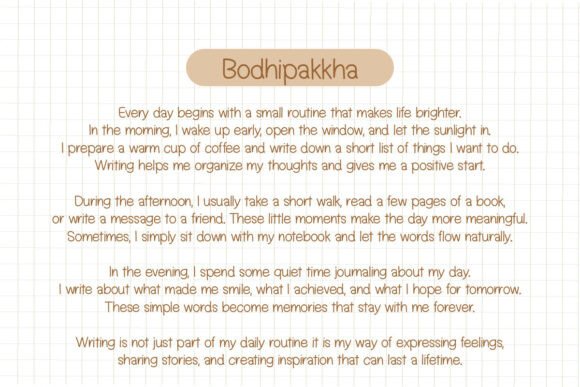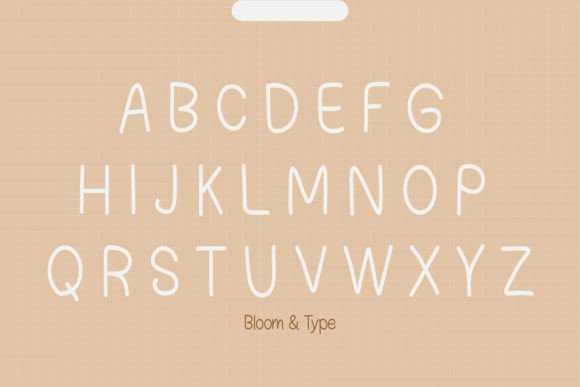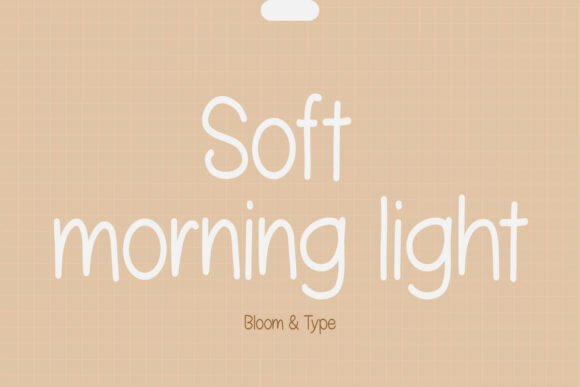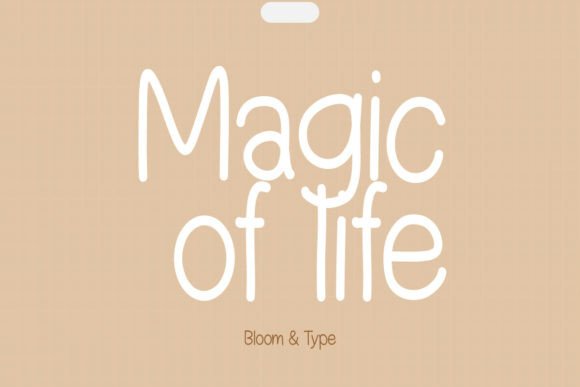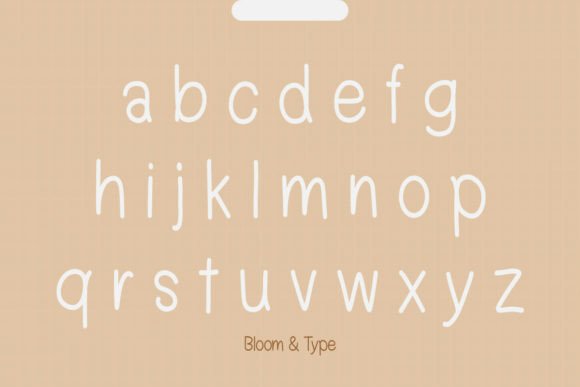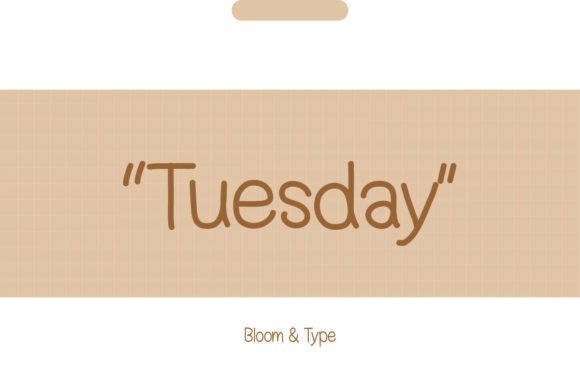
Introduction to Bodhipakkha Font
Bodhipakkha is a soft and friendly handwritten font that brings a warm, natural touch to your designs.
With its smooth curves and slightly imperfect strokes, this font captures the charm of real handwriting while keeping a clean and modern look Designed to feel light, simple, and approachable, Bodhipakkha works beautifully for a wide range of creative projects.
Key Features of Bodhipakkha Font
Why Choose Bodhipakkha Font?
Bodhipakkha Font offers exceptional quality and versatility, making it a valuable addition to your design toolkit. Whether you’re creating for personal projects or commercial use, Bodhipakkha Font delivers professional results.